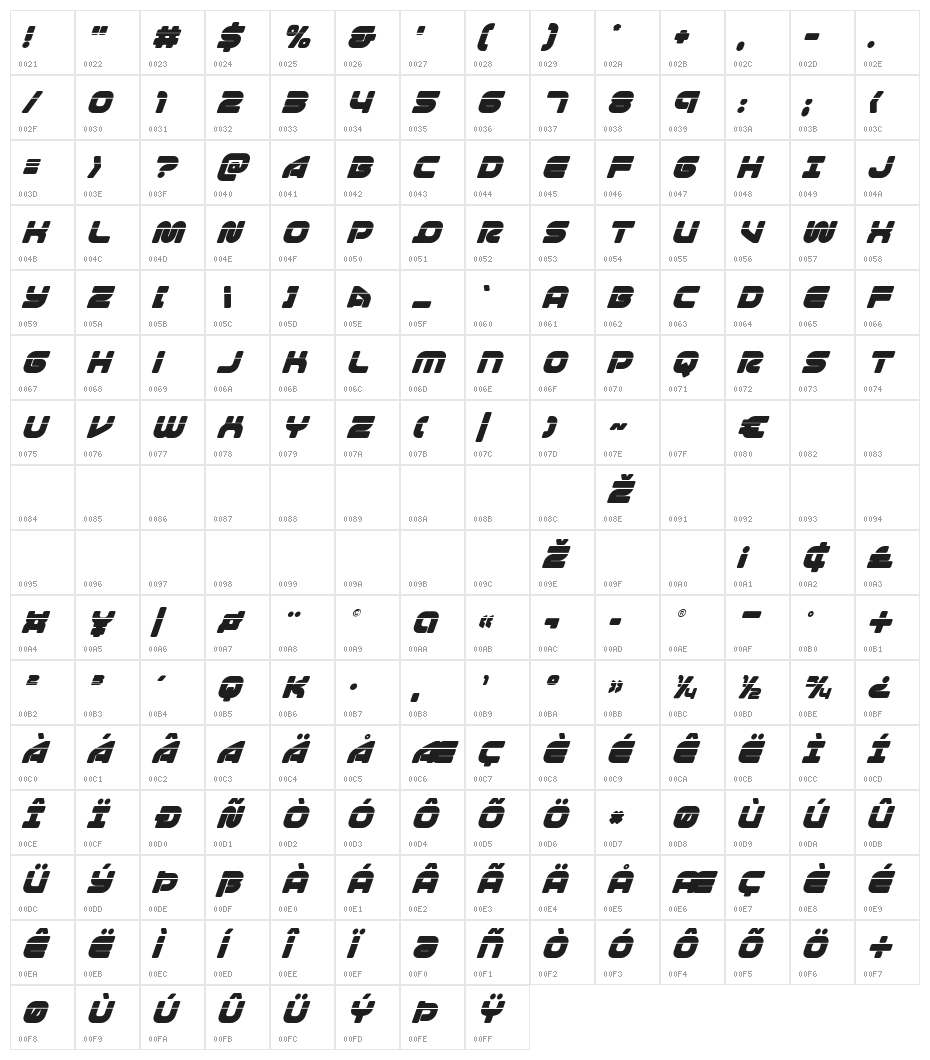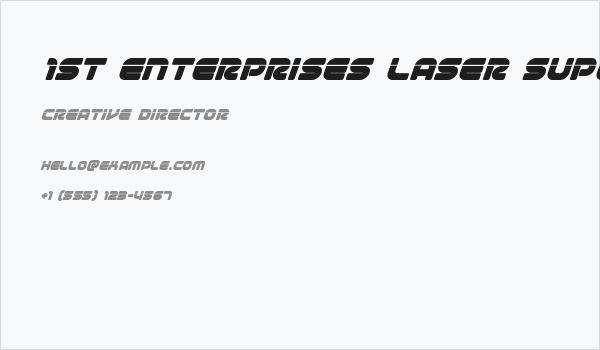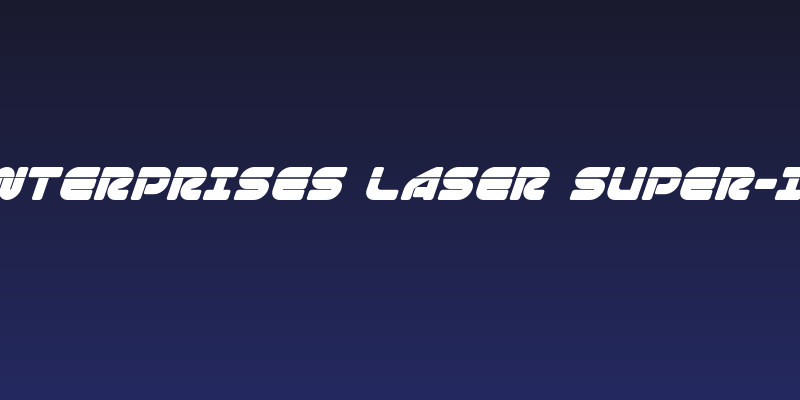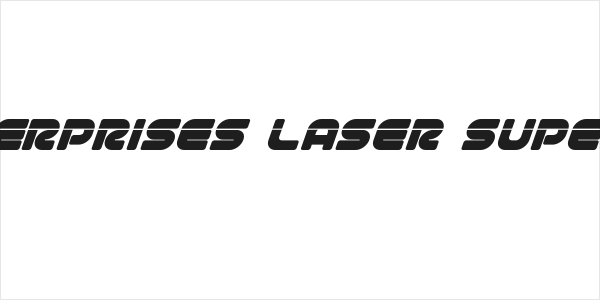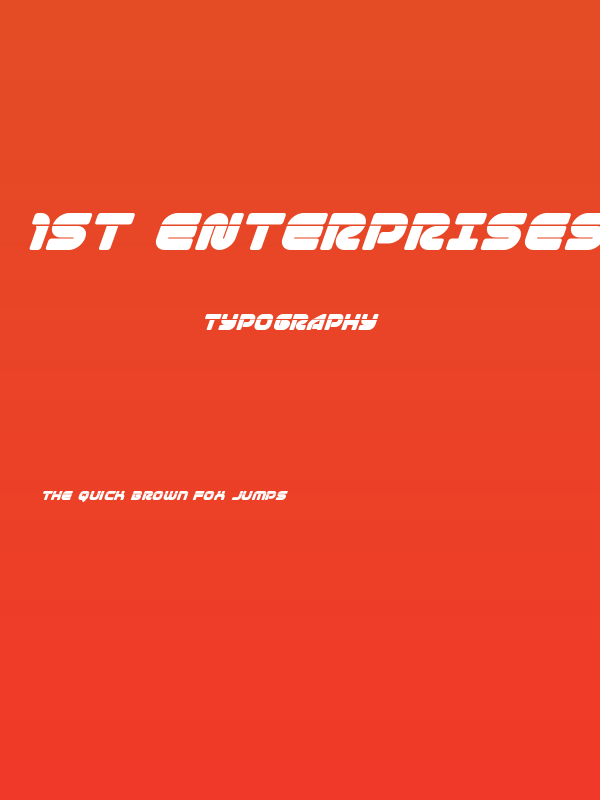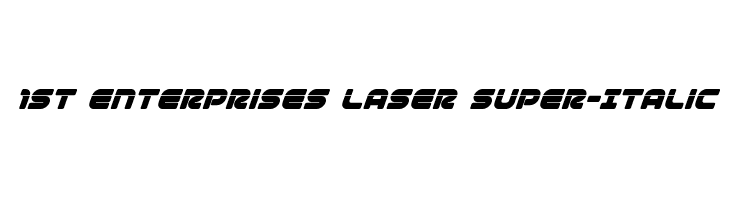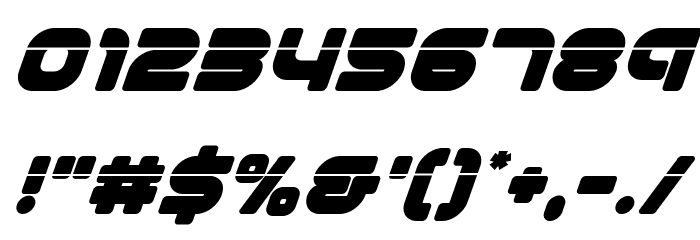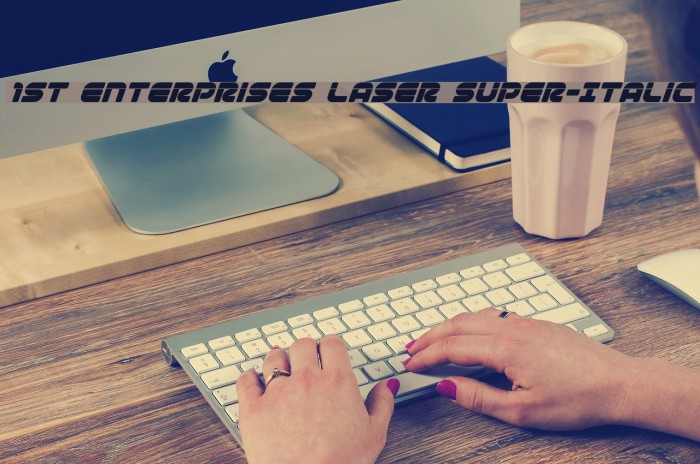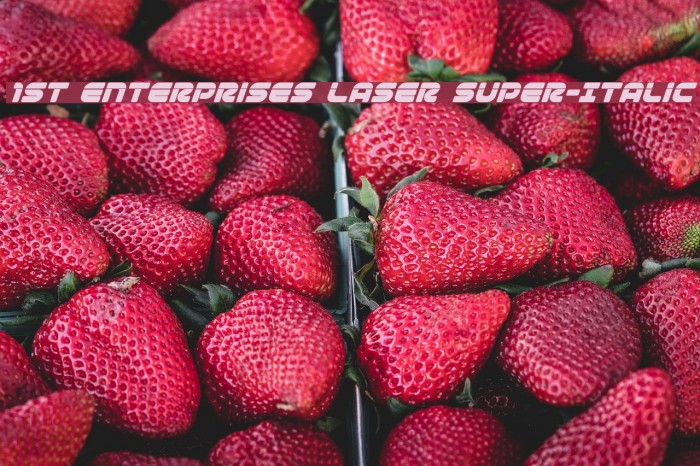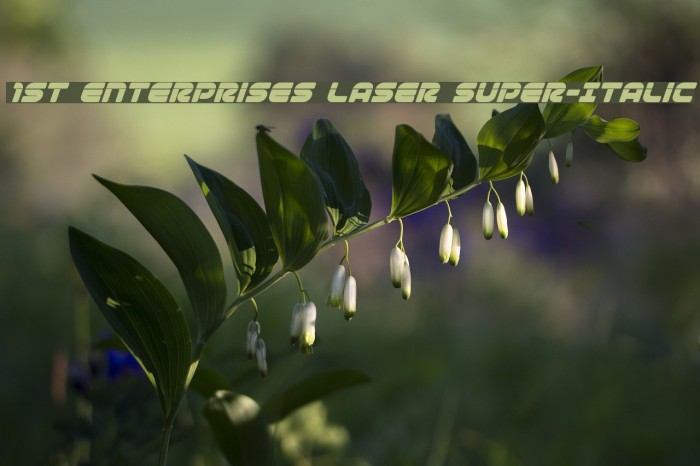
1st Enterprises Laser Super-Italic Font
1st Enterprises Laser Super-Italic Description
This font features a bold and dynamic style with a futuristic flair. The characters are italicized, giving a sense of motion and speed. Each letter has a distinct, rounded shape with a consistent stroke width, contributing to a cohesive and modern appearance. The font's design is sleek and smooth, with a slightly condensed width that enhances its compact and efficient look. The numbers and special characters maintain the same stylistic elements, ensuring uniformity across all glyphs. This font is ideal for projects that require a strong, impactful presence with a touch of modernity.
| Proposed Projects | Ideal for technology branding, sci-fi posters, video game titles, and sports event promotions. |